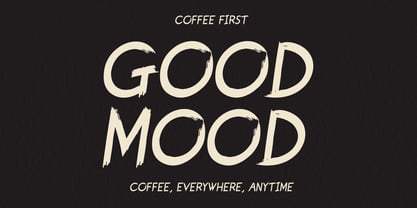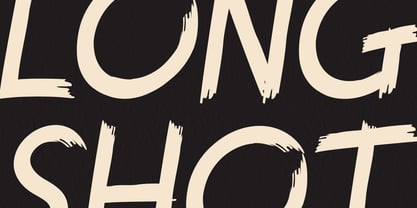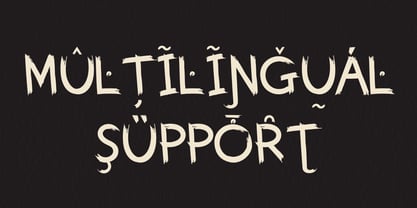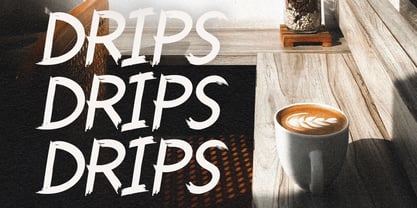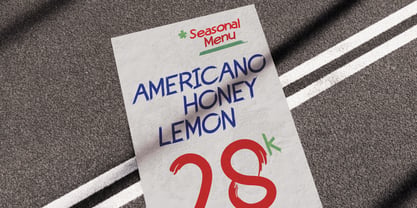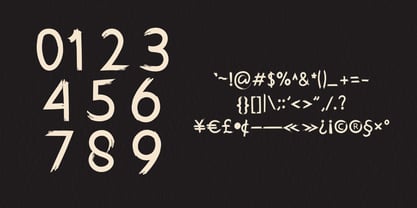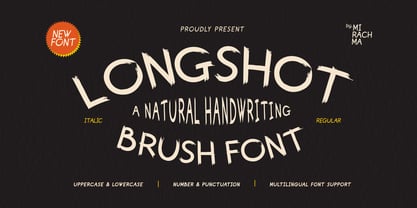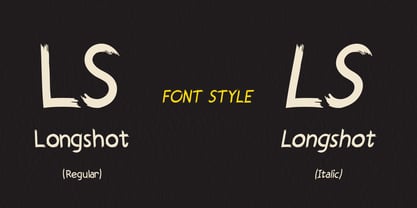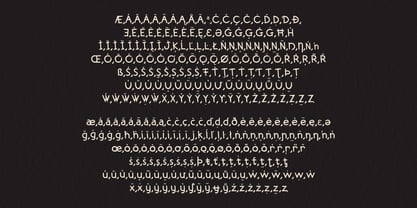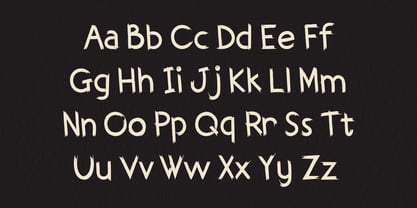
Longshot
von Mirachma
Die Schriftfamilie Longshot wurde von Mira Rachma entworfen und von Mirachma veröffentlicht. Longshot enthält 2 Stile und Familienpaketoptionen. Mehr über diese Familie
Introducing Long Shot, a brush font born from organic handwriting, adorned with authentic lines and brush-textured. Ingeniously conceived to be timeless, subtle, yet daring, Long Shot makes a statement. This font is versatile and can effortlessly grace a variety of design arenas, including logos, posters, and uniquely crafted gift tags. It is equally suitable as a display font or for body texts. Font Family (Regular, Italic) Multilingual Font Support Uppercase & Lowercase Alphabets Numerals & Punctuation Note: Mockups & images featured in the preview image designs are for display purposes only, and not included in the download.
Designer: Mira Rachma
Foundry: Mirachma
Mirachma is a design studio founded by a designer named Mira in 2016. The name Mirachma was conceived simply: Mirachma is a combination of the first and last names of the designer who founded it, made even shorter. In the beginning, Mirachma focuses on 3D-based design, working on store layout design, interior layout, visual merchandising, product design, and product modeling. Starting something new, after working on several font projects, we really enjoyed it, felt a new sense of enthusiasm, and then decided to focus on typeface design. We have included links to my portfolio and creative store in my social media bio (Instagram) as part of our marketing efforts. Mirachma is based in Bandung, Indonesia. Currently, there is a designer working here, but we collaborate with our partners for projects that require multiple designers. Our plan is to create fonts that are always different and unique in every design I create, helping our customers make their designs look more professional and beautiful, and helping them visualize the designs they want to create. We are confident that Monotype is the best platform for me to connect with these people. Please review our portfolio and store to see the styles and products we have created.